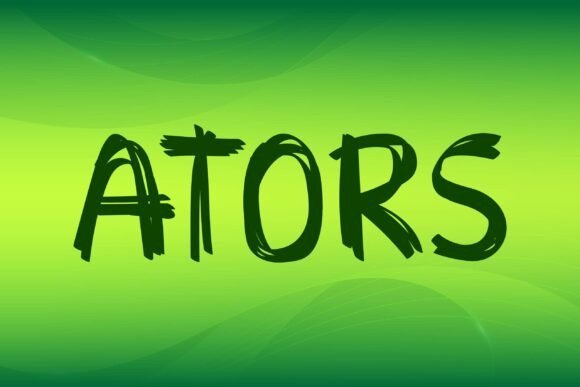
Introduction to Ators Font
Introducing Ators: a Gothic-designed Stylish Decorative Font imbued with playful Cartoon Quality.
Ideal for Movie titles, Cartoon names, Game titles, and T-shirt designs, Ators boasts 96 intricately crafted glyphs and 95 characters Its captivating design combines beauty and versatility, making it a perfect choice for adding charm and creativity to any project.
Key Features of Ators Font